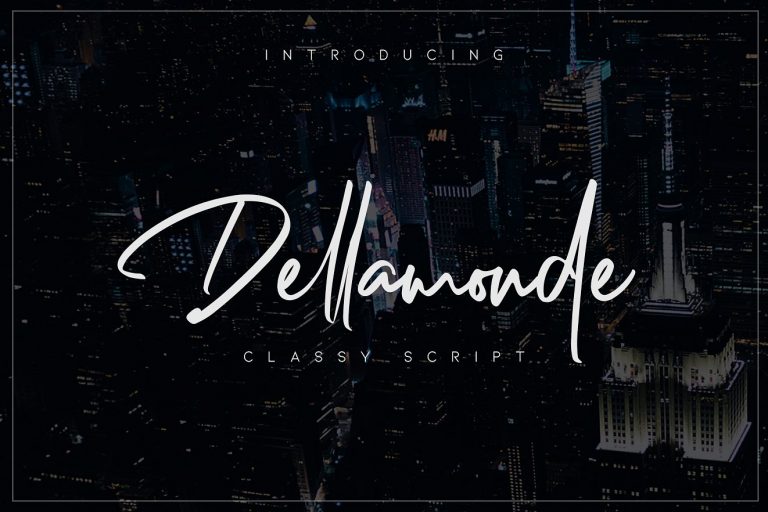
Dellamonde Script Font
Hi Ladies and Gentleman!! this is Dellamonde Typeface, simple and easy to create awesome lettering, just type your words and then you will immediately see the great results. Dellamonde is a Classy Script font with 2 style regular and italic. Inspired by luxury and branded stuffs make this font looks classy and awesome in many way to your latest project. Dellamonde is perfect for logos & branding, photography, invitation, watermark, advertisements,product designs, stationery, wedding designs,label ,product packaging, special events or anything that need handwritting taste.